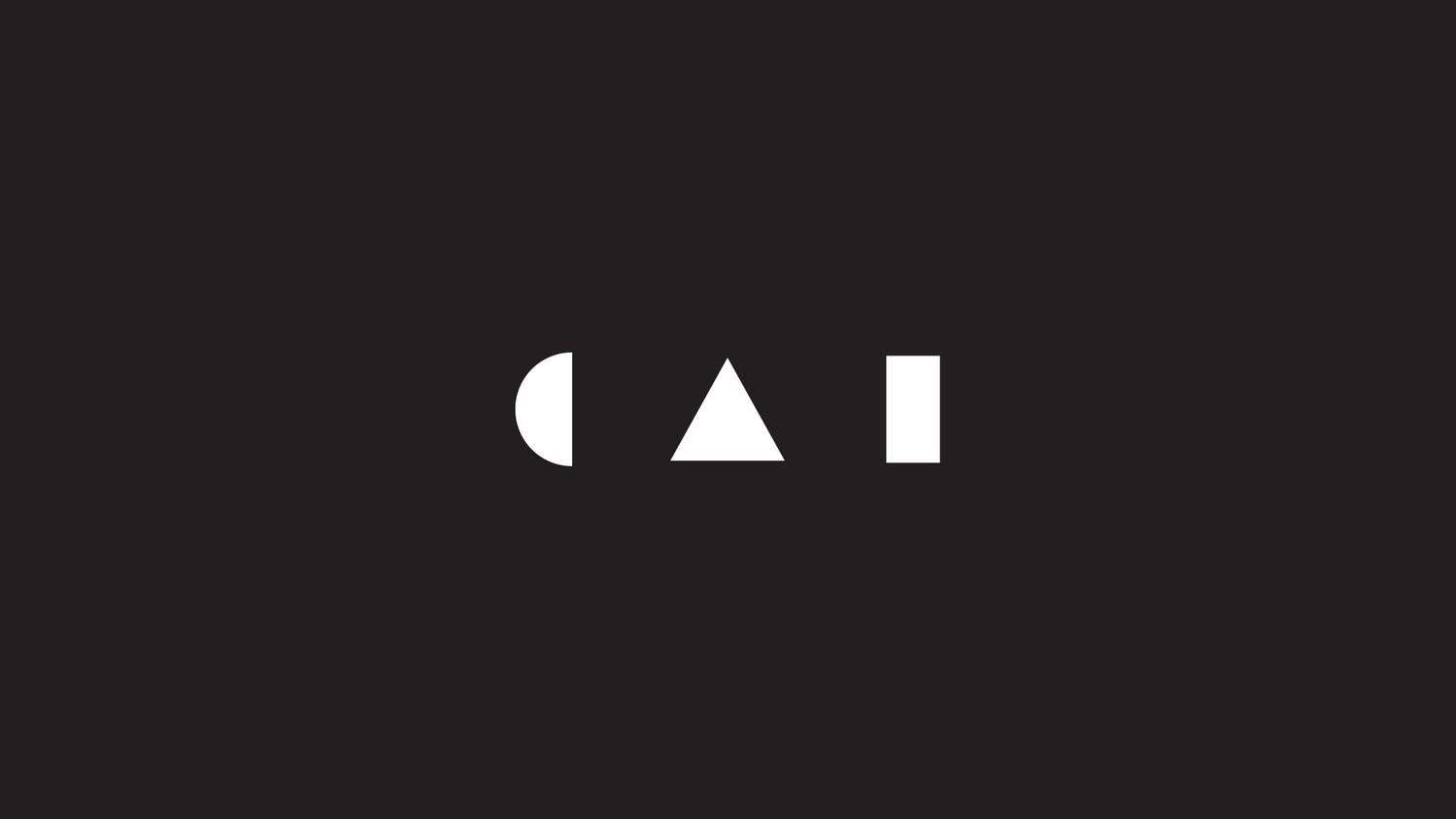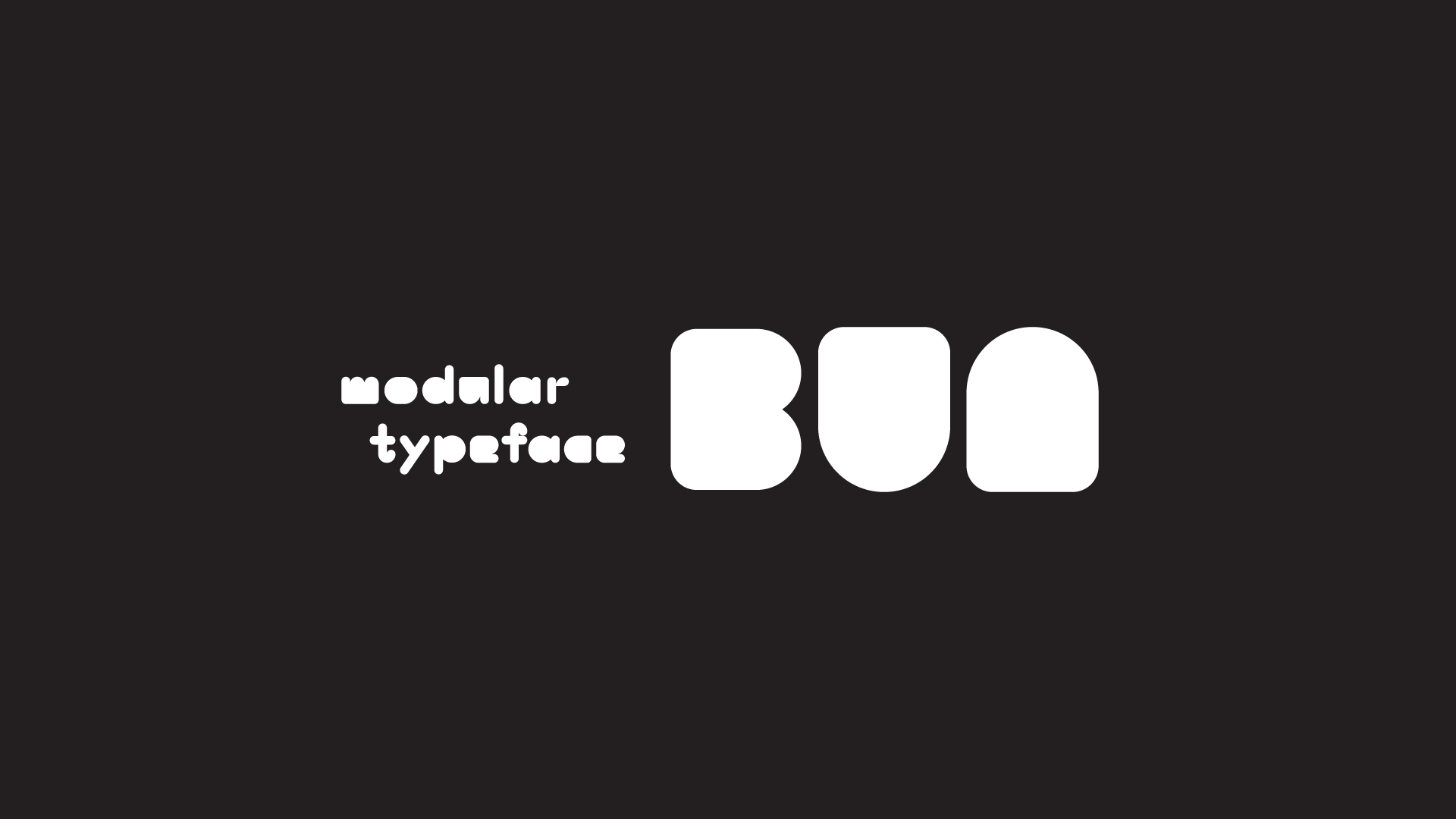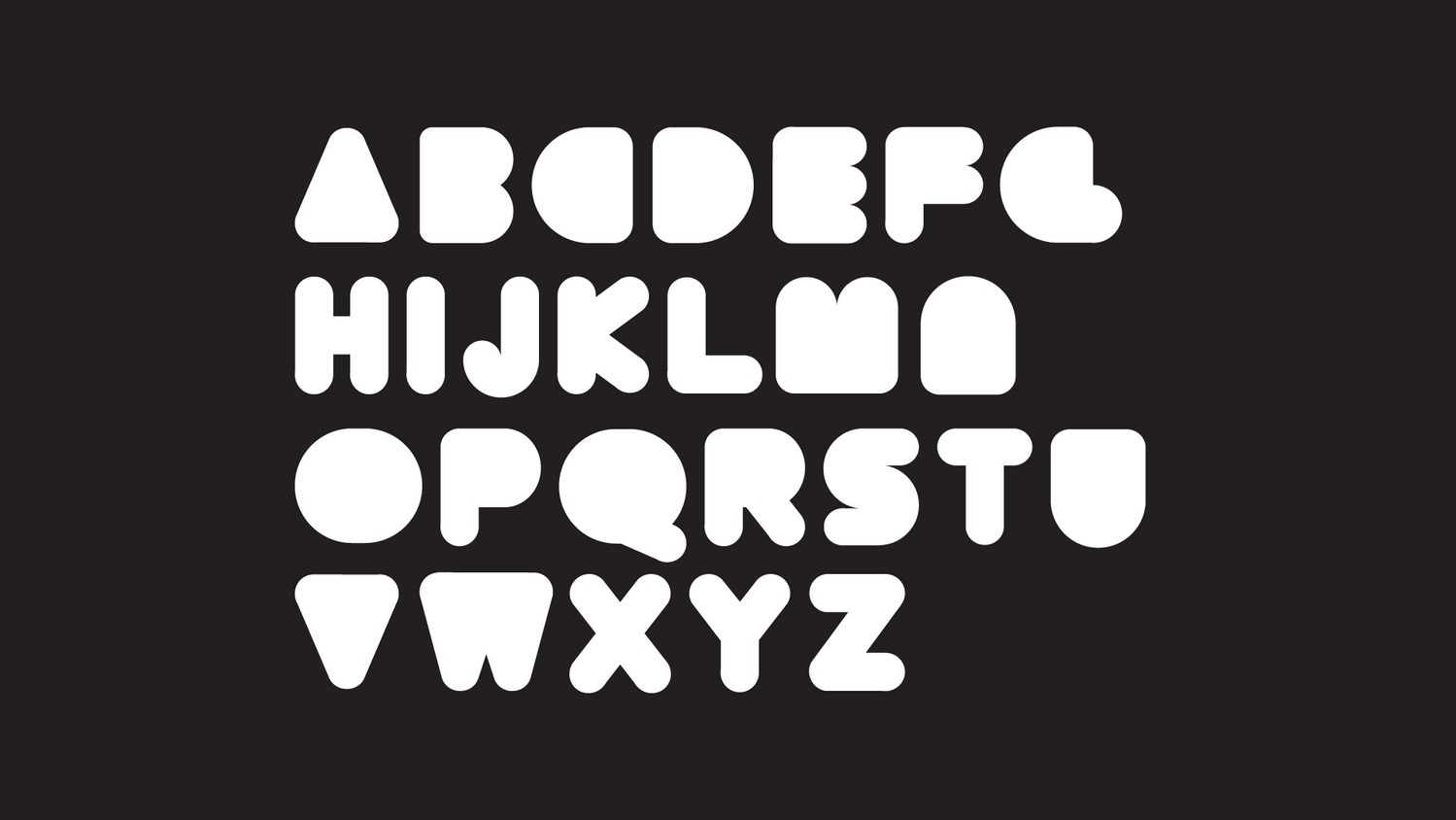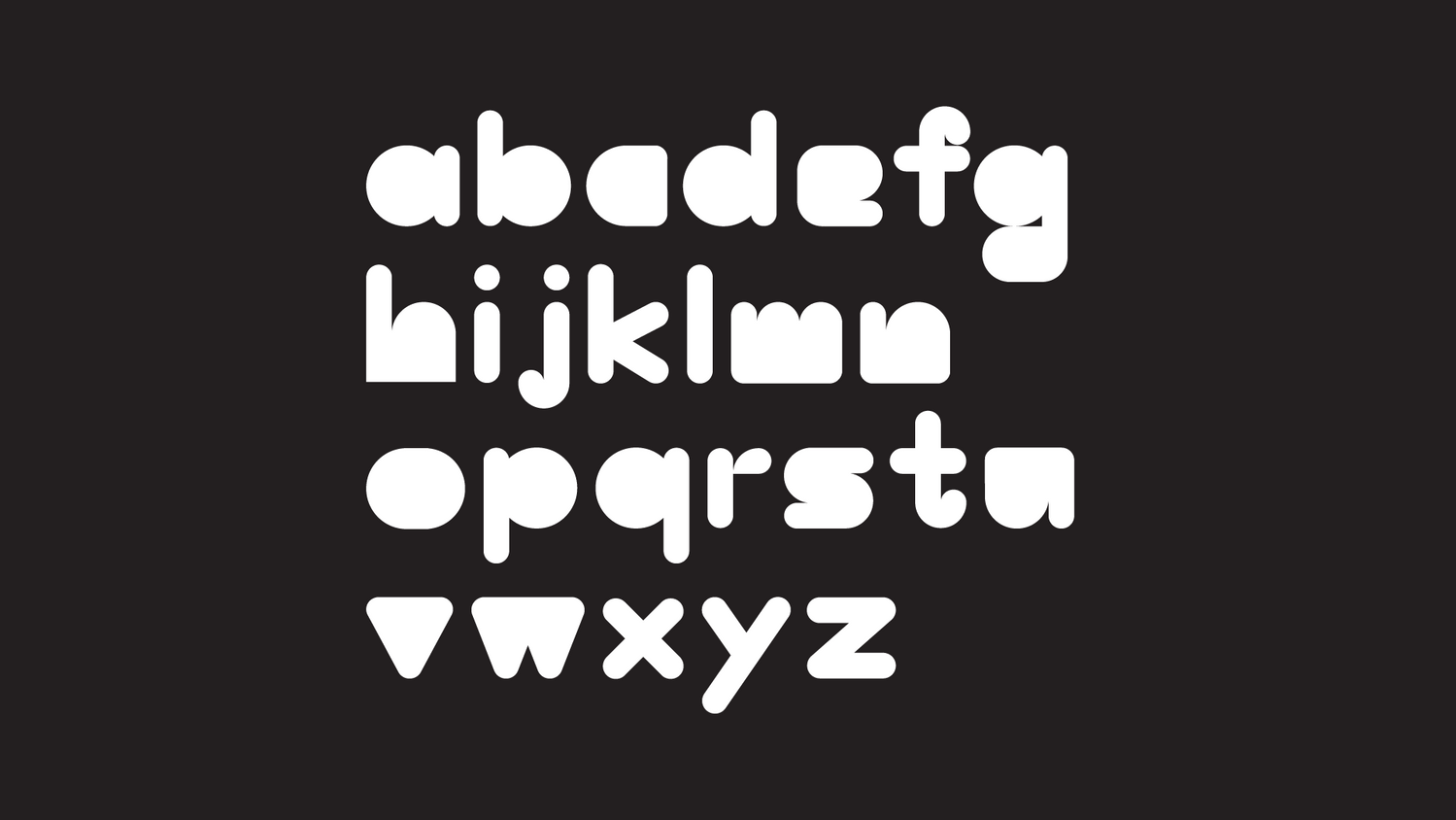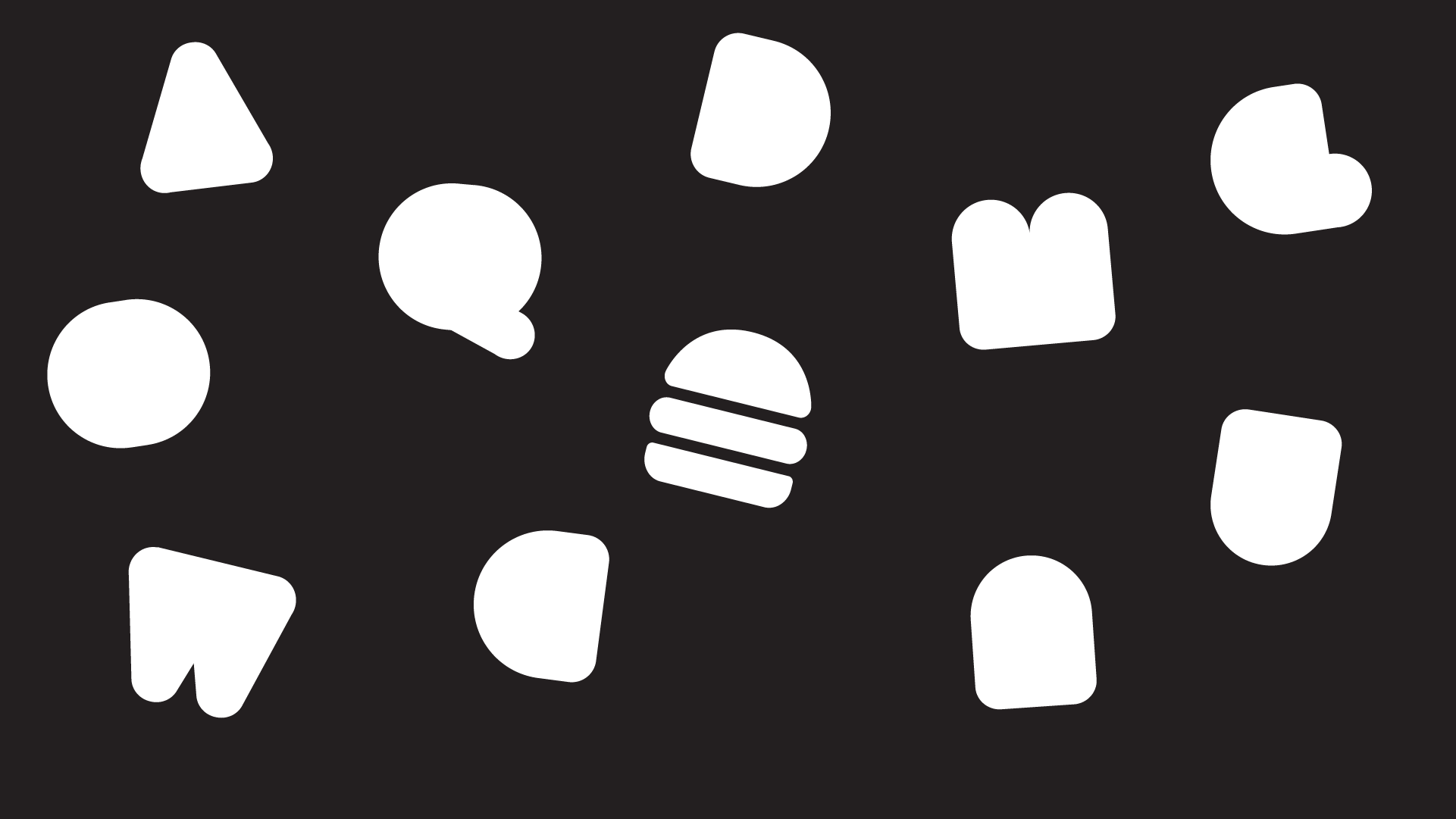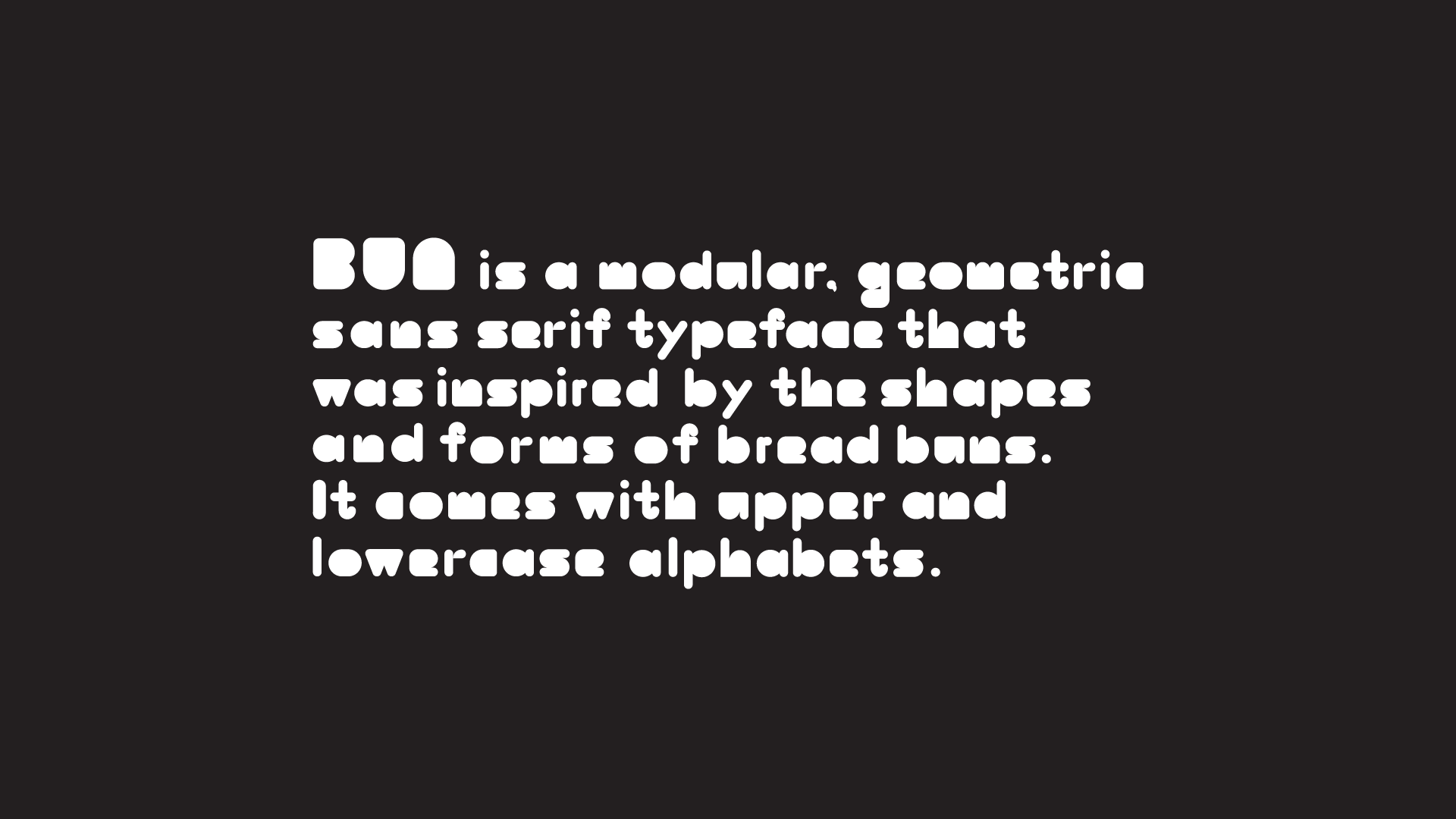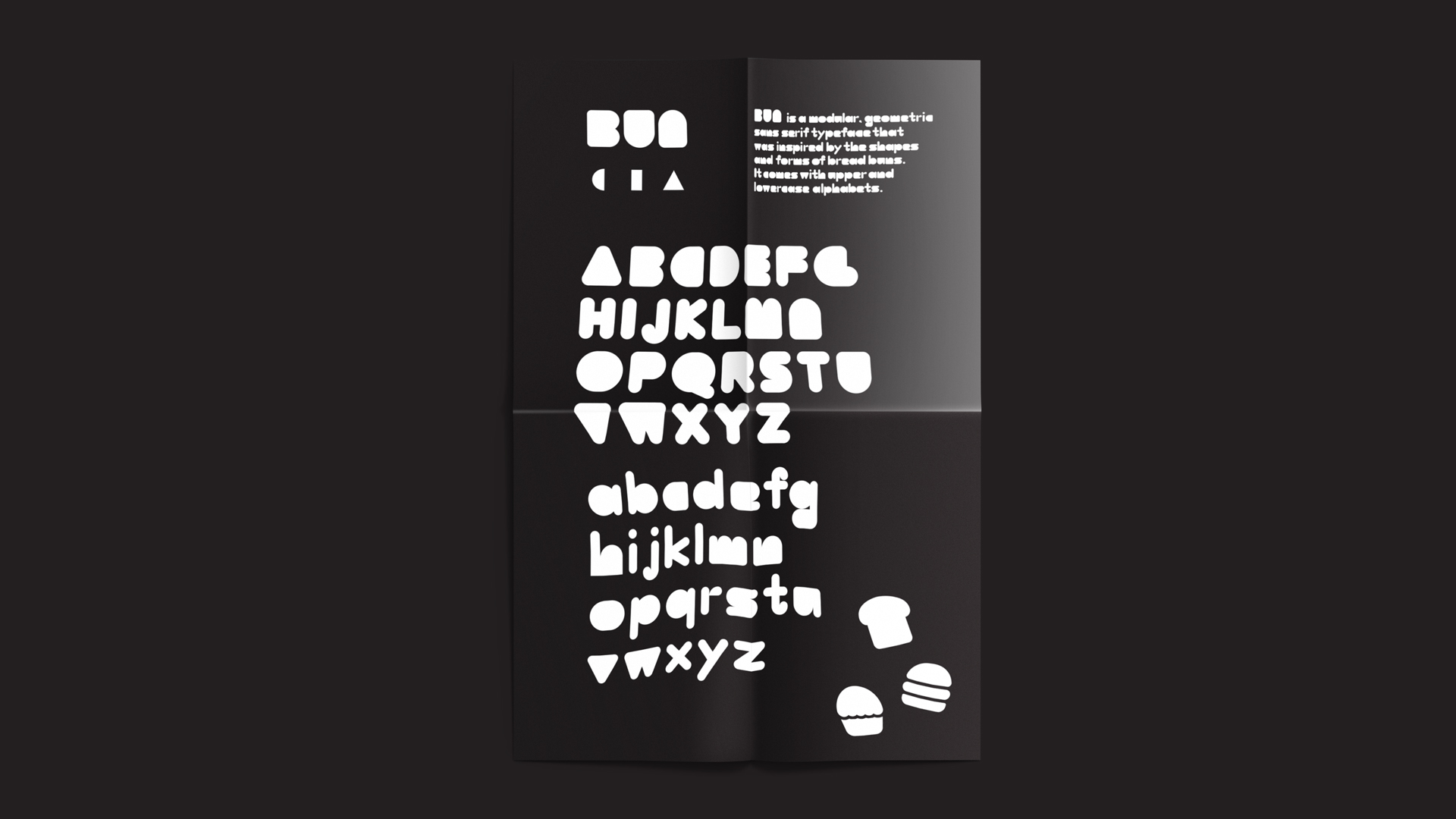
Modular Typeface: BUN
I was assigned to design a basic uppercase and lowercase alphabet (A–Z, a–z) using modules built from the primary forms (●, ▲, ■) and combinations thereof. My ideation began by building a modular concept design typeface named BUN, as it is inspired by the shapes and forms of bread buns.
I set three designed modules based on the primary forms: circles, triangles, and squares, and defined the proportions of my letters as normal san serif typeface. Each letter consists of one or more modules that are rotated, flipped and overlapped. Working within a modular method helped me to understand the architecture of letterforms and the modularity, coherence, and harmony inherent to type design.
My ideation process began with the creation of a modular concept design for a typeface named BUN, inspired by the shapes and forms of hamburger buns.
Three design modules were established based on primary shapes: a half-circle, a triangle, and a rectangle, which defined the proportions of the letters in my sans-serif typeface.